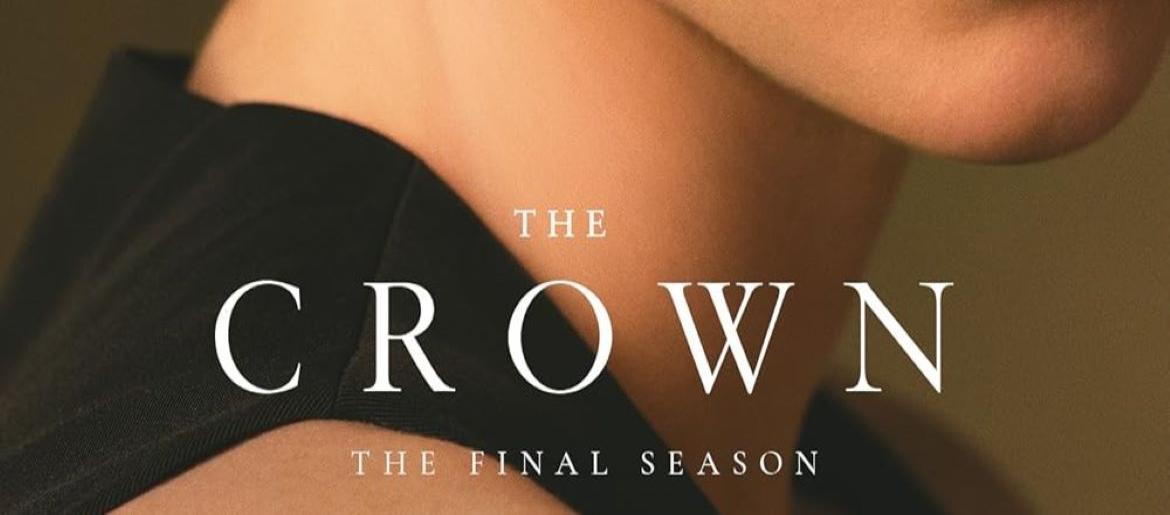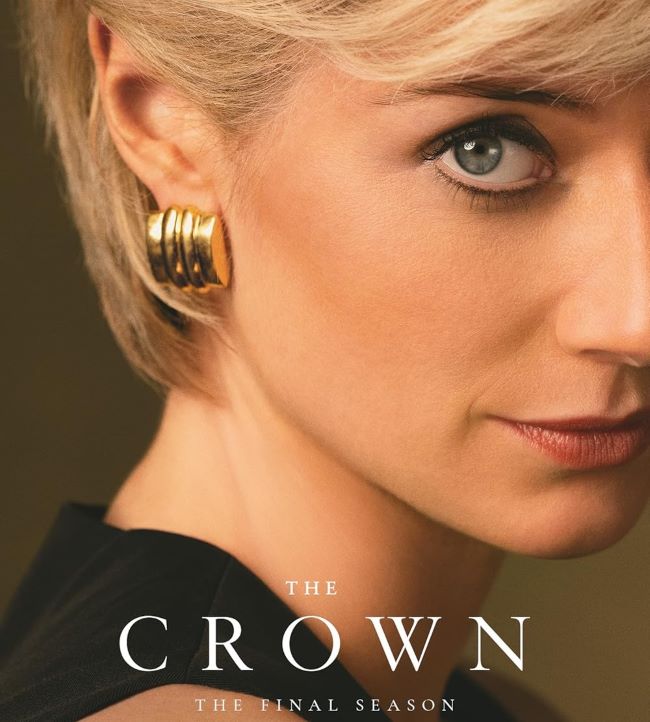
The Crown font embodies the elegance, sophistication, and regal charm of the acclaimed Netflix series The Crown. With its refined, classic lettering and royal-inspired design, the The Crown font reflects themes of power, tradition, and the complexities of monarchy. I think this font is perfect for projects that need a luxurious and timeless look—such as wedding invitations, historical posters, or elegant branding. Its graceful style adds a sense of dignity and grandeur, making it a favorite for designs that aim to capture prestige and refinement. Using the The Crown font instantly gives any project a touch of royal elegance and historical depth. The font used in the logo is Sabon Roman. You can also download 2 simmilar fonts below.
About The Crown
The Crown is a Netflix historical drama that premiered in 2016. The series chronicles the reign of Queen Elizabeth II, exploring her personal struggles, political challenges, and the enduring legacy of the British royal family.